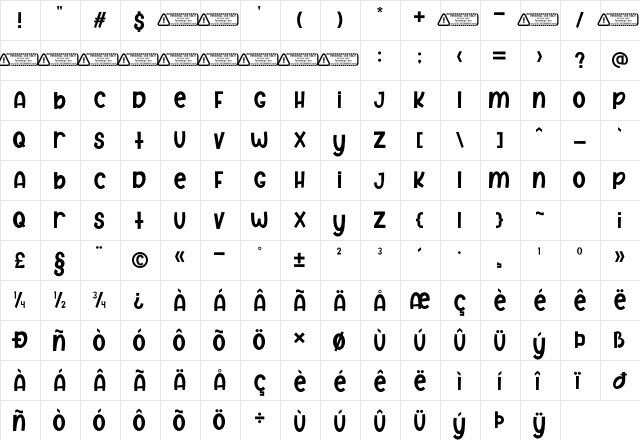
Hellokids PERSONAL USE ONLY! has an approachable, lighthearted character - its loose, expressive forms are well-suited to children's content, casual branding, and fun-first design.
Font Pairing: Pairs well with a rounded or humanist sans for body copy, maintaining the friendly tone without relying on Hellokids PERSONAL USE ONLY! to carry extended reading.
Pro Tip: Use Hellokids PERSONAL USE ONLY! at larger display sizes where its expressive character can land. Pair with a clean, simple sans for body copy to maintain readability.